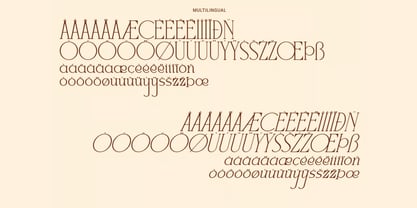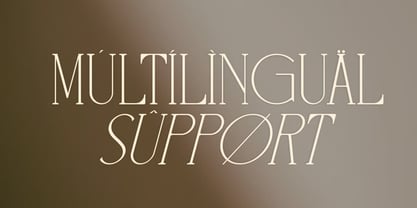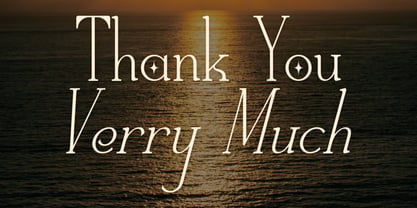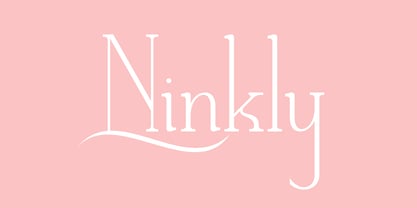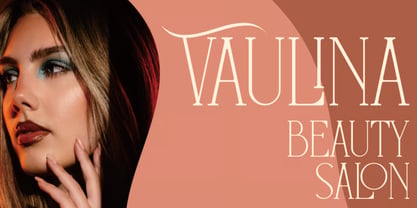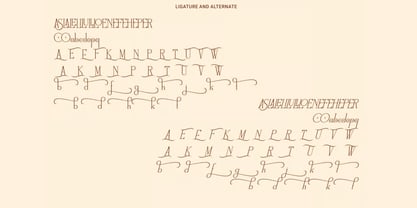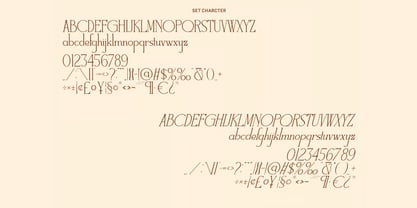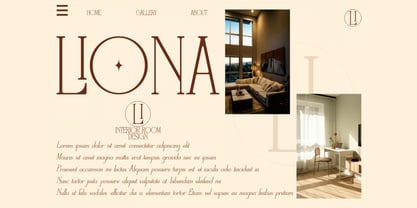
Ninkly
by Hasnat Studio
The Ninkly Font Family was designed by Hasnat Khan and published by Hasnat Studio. Ninkly contains 2 styles and family package options. More about this family
Ninkly is a modern condensed typeface designed to deliver maximum visual impact with strong letterforms, clean geometry, and distinctive cut details. Crafted for designers who want typography that commands attention, Ninkly combines contemporary minimalism with bold industrial character, making it the perfect choice for high-impact display projects.
Its condensed structure allows more content to fit into limited space without sacrificing readability, while its sharp edges and powerful proportions create a confident, energetic, and modern appearance. Whether you're designing eye-catching headlines, bold logos, advertising campaigns, fashion branding, or creative posters, Ninkly ensures your typography becomes the centerpiece of every design.
Designed for both print and digital applications, Ninkly offers the perfect balance of strength, versatility, and modern sophistication, making it an essential addition to any designer's font library.
✿ Key Features:
• Bold Modern Condensed Design: Powerful letterforms with a sleek contemporary aesthetic.
• Distinctive Cut Details: Unique character styling that adds personality and originality.
• Uppercase & Lowercase Characters: Complete alphabet for flexible typography.
• Numerals & Punctuation: Professional character set for branding and editorial work.
• Stylish Ligatures: Seamless letter combinations for polished and creative typography.
• Excellent Readability: Optimized for large headlines and impactful display use.
• High-Impact Typography: Designed to stand out across print and digital platforms.
• Professional Display Typeface: Ideal for modern branding and advertising projects.
✿ Perfect For:
• Logo Design & Brand Identity: Build bold, memorable, and modern brands.
• Headlines & Editorial Titles: Create attention-grabbing magazine and newspaper headlines.
• Poster & Advertising Design: Perfect for promotional campaigns and marketing materials.
• Fashion Branding: Ideal for apparel brands, streetwear, and creative labels.
• Packaging Design: Add strength and personality to premium product packaging.
• Social Media Graphics: Design impactful posts, banners, and digital advertisements.
• Website Headers & UI Design: Enhance digital experiences with bold typography.
• Creative Display Projects: Excellent for presentations, signage, and event branding.
Power your next creative project with Ninkly—a bold modern condensed typeface featuring strong letterforms, stylish ligatures, and distinctive cut details. Perfect for logos, headlines, posters, branding, fashion, advertising, packaging, and contemporary visual identities that demand attention and leave a lasting impression.
Designers: Hasnat Khan
Foundry: Hasnat Studio